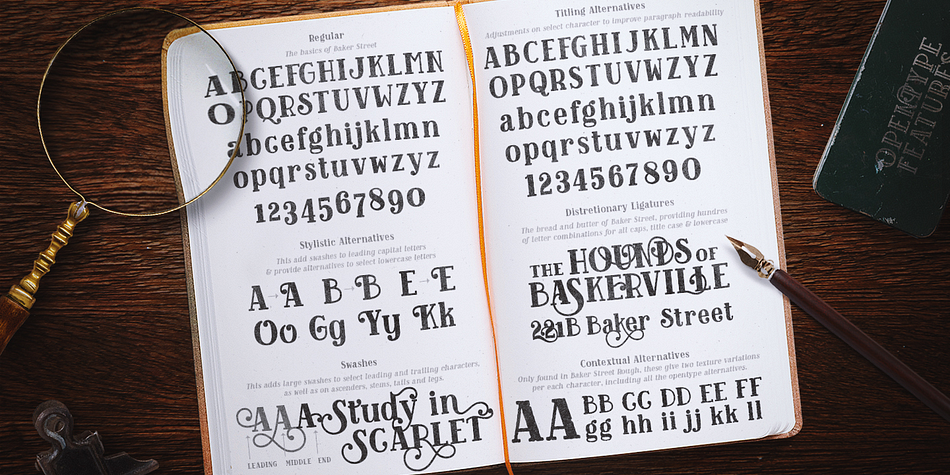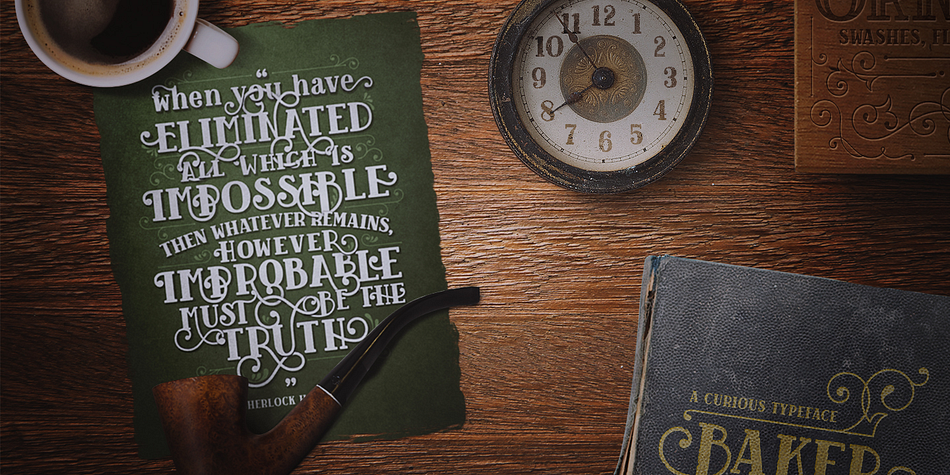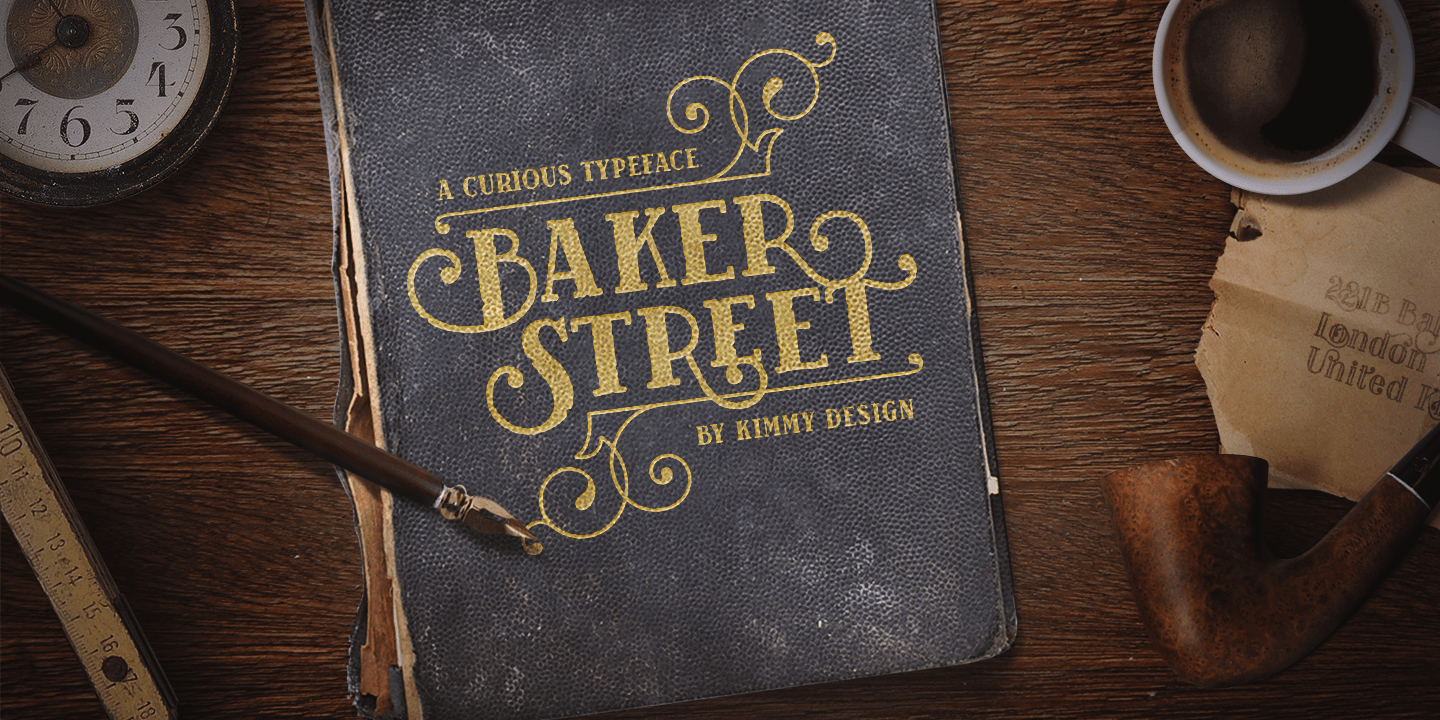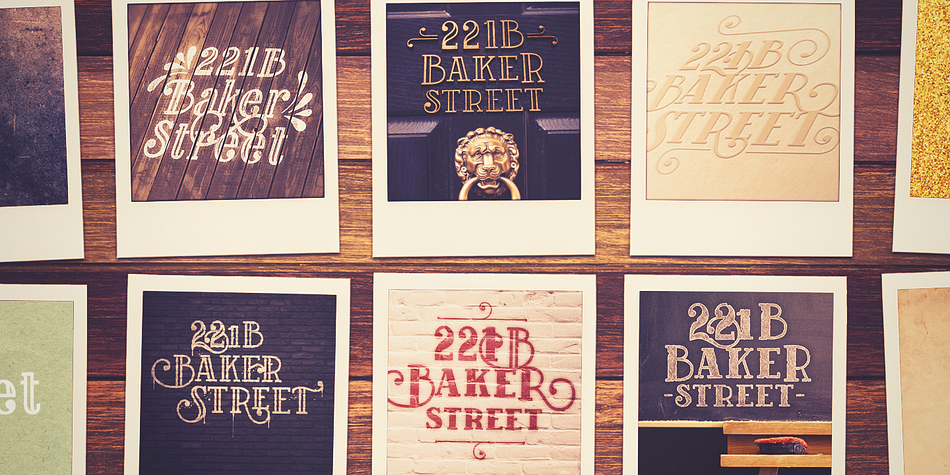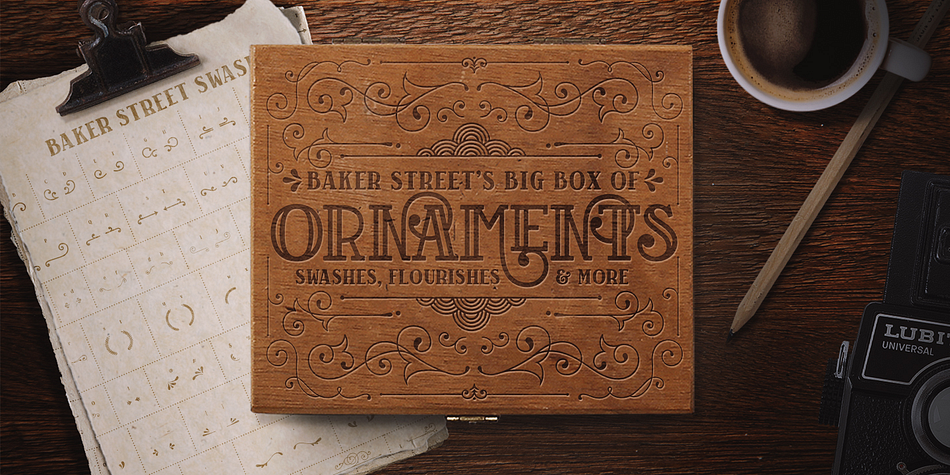
Designed by Kimmy Kirkwood, Baker Street is a dingbat and slab serif font family. This typeface has six styles and was published by Kimmy Design.
Baker Street was inspired by a recent trip to London, England where I happened upon a bustling pub with beautiful typographic signage. Early sketches created an array of specialized ligatures from which the font really took shape. The family comprises regular, italic, inline and a rustic textured style.
Baker Street delivers a multitude of Opentype features, primarily including hundreds of discretionary ligatures that connect letter pairs through varying flourishes. These distinct ligatures are used in combinations between two capital letters, two lowercase letters, uppercase to lowercase pairs and specific number combinations. For select capital and lowercase letters, large swashes expand above and below the characters. Contextual swashes are also applied to some characters when placed at the beginning or end of a word. Stylistic Alternatives and Titling Alternatives offer distinct style variations to capital letters. Tabular Lining and Oldstyle Figures provide several numerical alternatives.
Lastly, the family also includes two sets of ornaments created specially to work with Baker Street’s style.